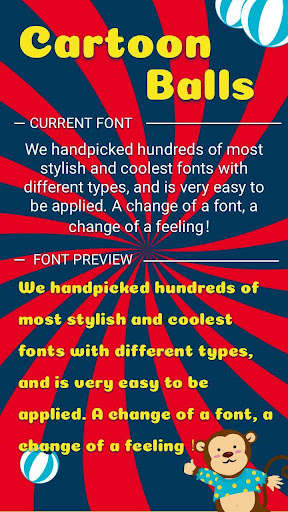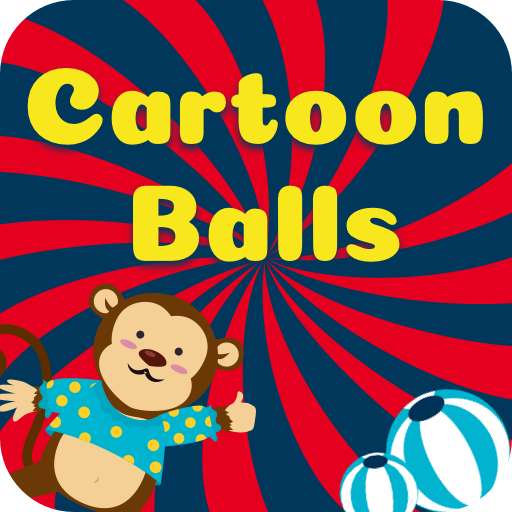
You can find the amazing and perfect font style which fits your taste well.
Change your entire phone font into Cartoon Balls.
Lovely, sweet and colorful as you wish.
Hundreds of selected fonts style from handwritten fonts like Cartoon Balls, such as cute, darker, comic, galaxy, love, pink, sexy written, colorful fonts, clean fonts, candy fonts, etc.